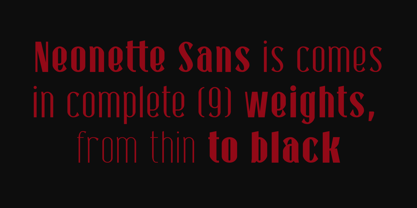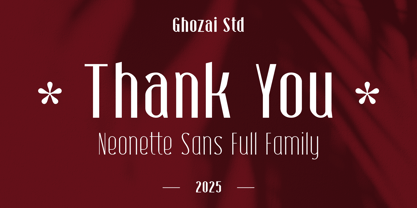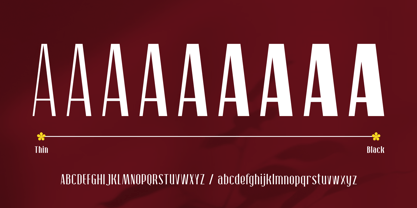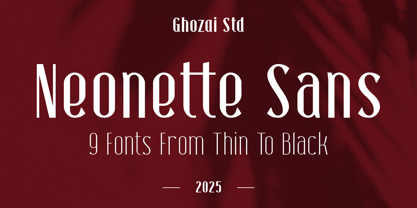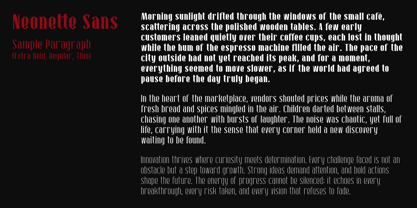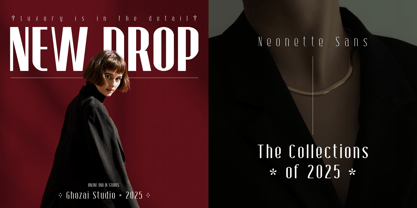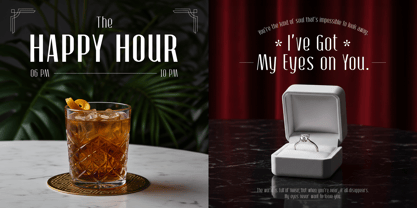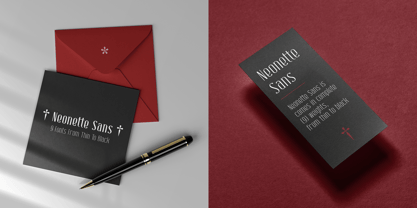
Neonette Sans
by Ghozai Studio
The Neonette Sans Font Family was designed by Manzur Ghozaali and published by Ghozai Studio. Neonette Sans contains 9 styles and family package options. More about this family
Neonette Sans is a completely versatile sans font family that includes 9 weights, ranging from Thin to Black. With its extensive array of weights, OpenType features, and robust multilingual glyph support, Neonette Sans caters to diverse design needs across different languages. Its modern, clean, and aesthetic design makes it suitable for various applications, including display typography, branding, signage, magazines, and any prints. Whether you are crafting striking headlines, unique logos, or legible signage, Neonette Sans provides both style and functionality, seamlessly adapting to different design styles and ensuring a contemporary touch in any project.